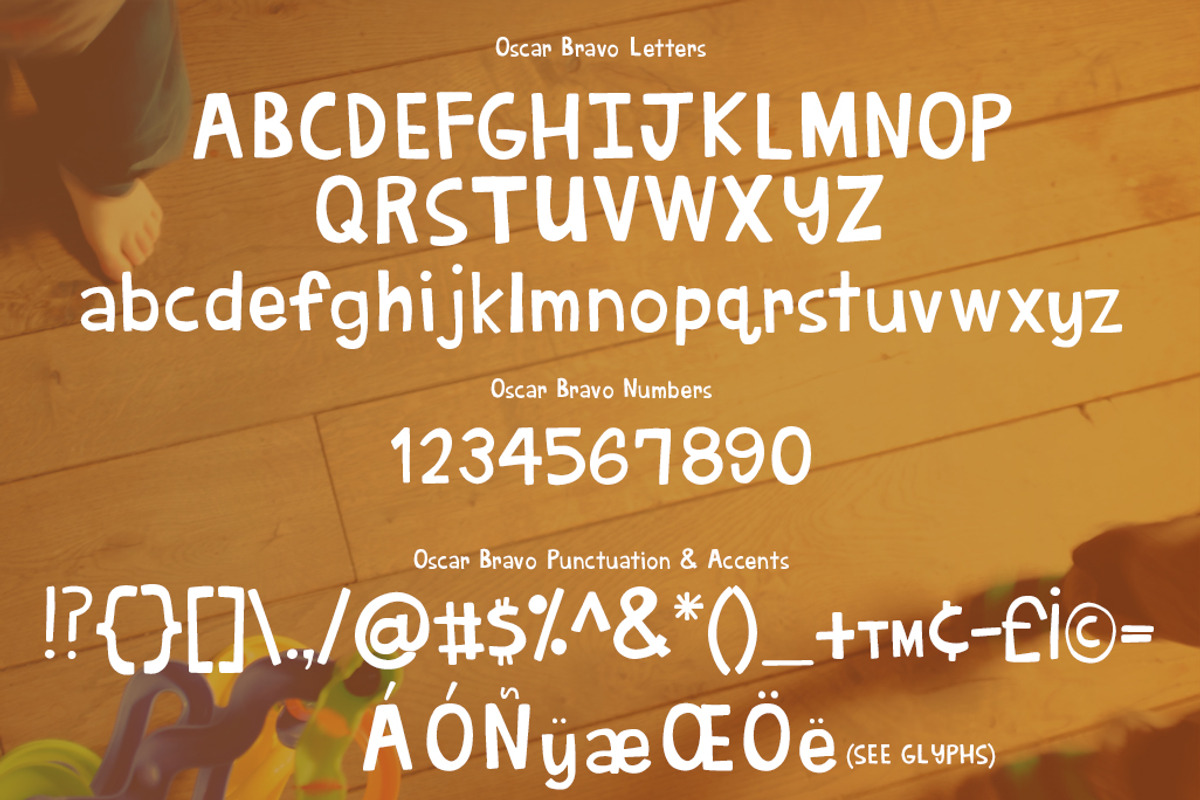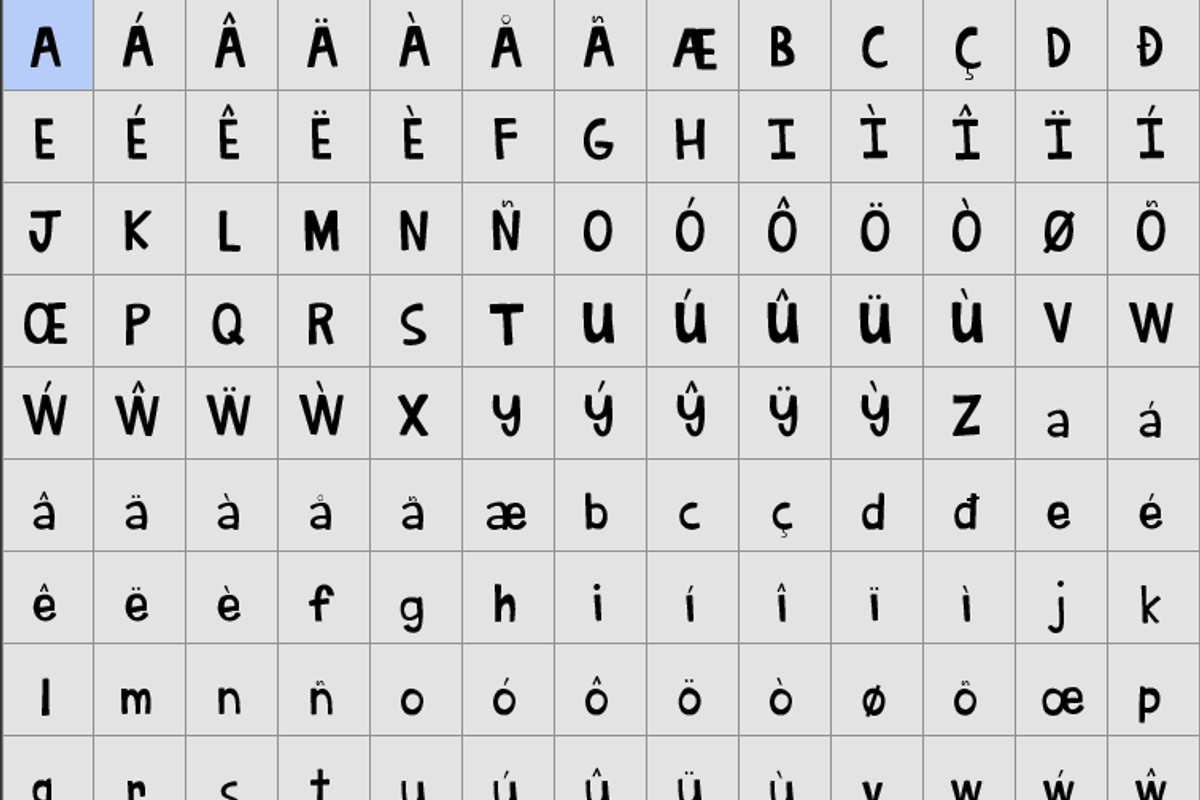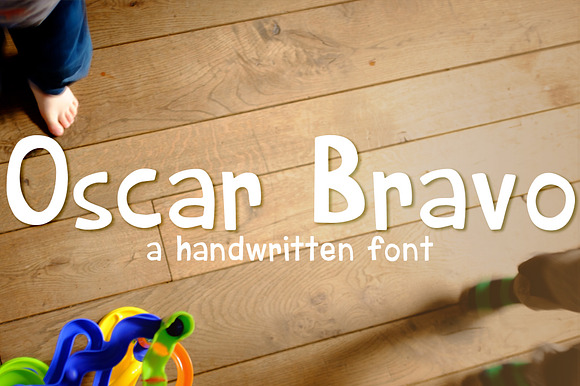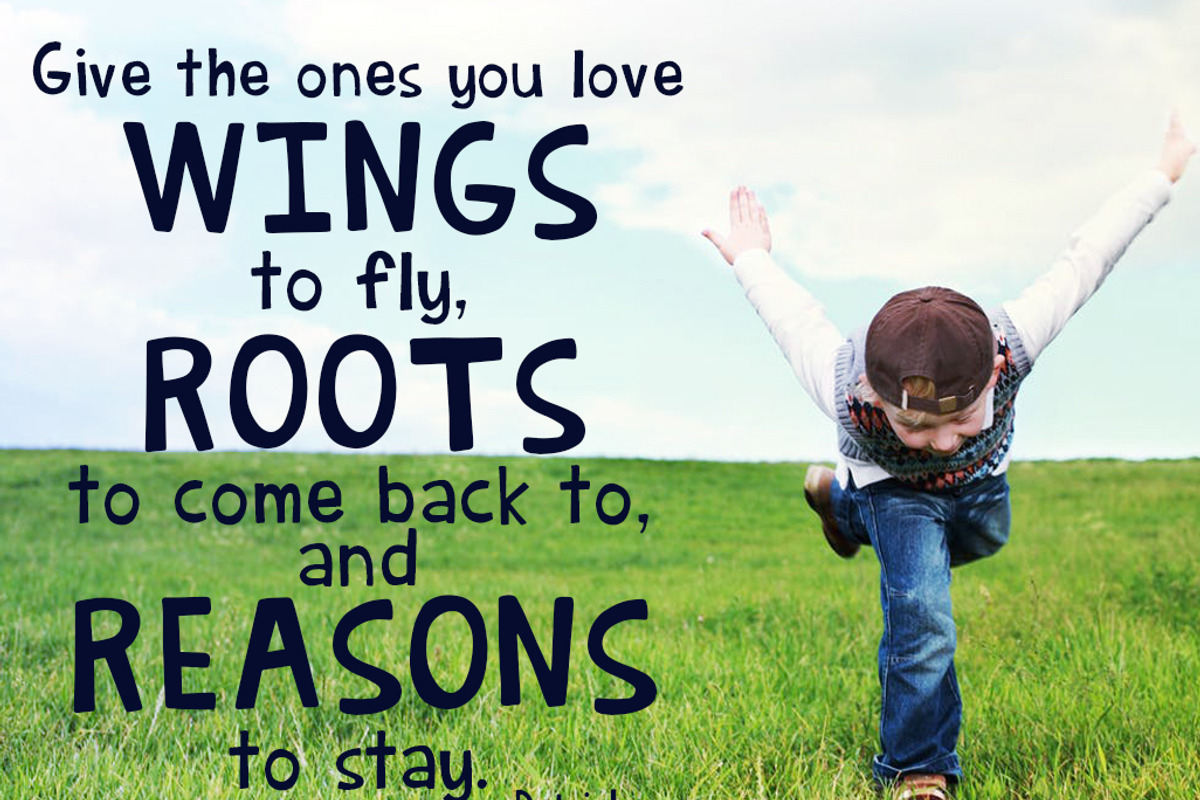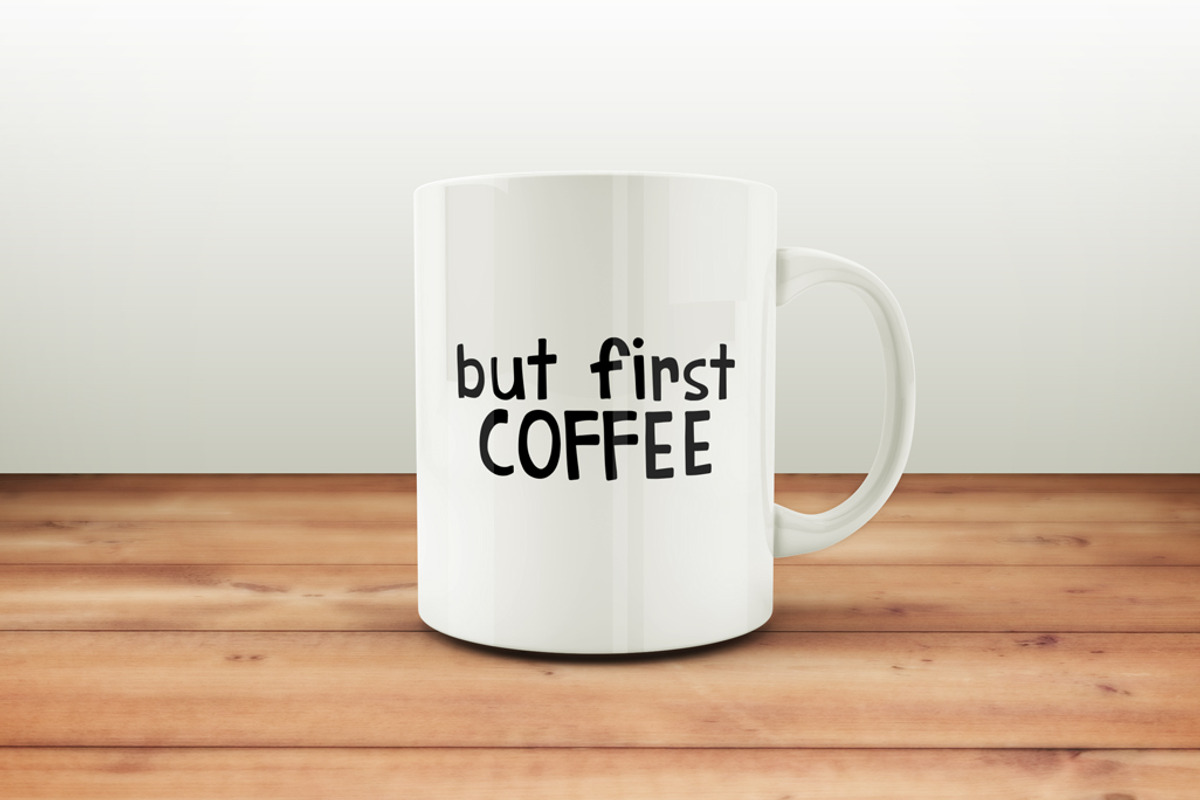
Oscar Bravo Font
Inspired by my passion for hand-lettering, Oscar Bravo is a quirky, clean, and fun font that looks great on greeting cards, amazing on t-shirts, perfect on mugs and combines seamlessly on just about any hand lettered project that comes your way. (P.S.- this will make ANY project for kids look simply AMAZING!)